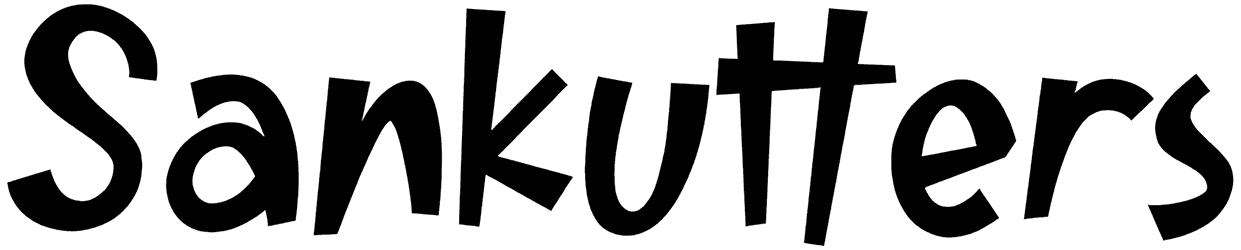
Sankutters Font
Sankutters is a fancy font that feels energetic. This cartoon font has a playful style and catches your attention in the first second. The Sankutters font may apply to various cases, such as posters, animations, and cartoons.
This incredible font’s letters are bold and not entirely strict, creating a friendly feeling. Moreover, they have sharp edges and seem cut, making this font entertaining to the viewers. So download it now and give your audience a new experience.